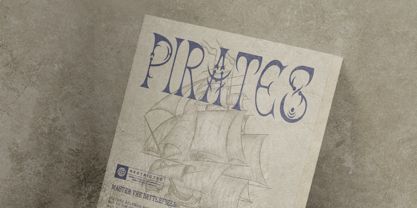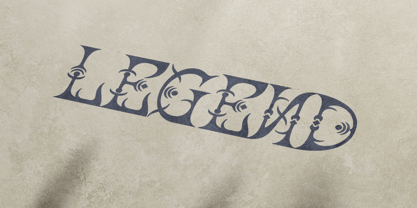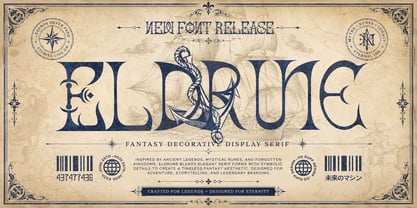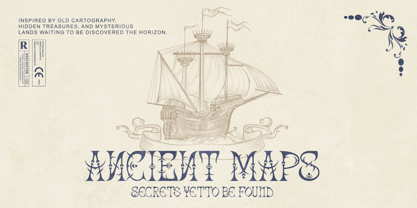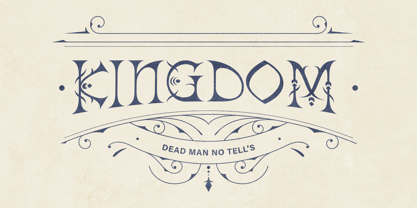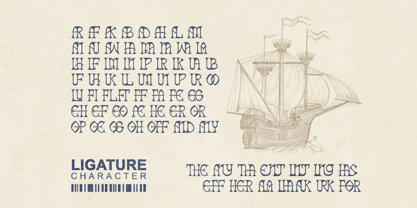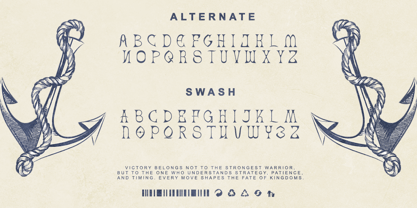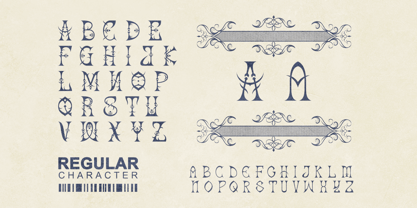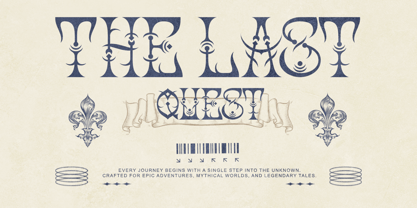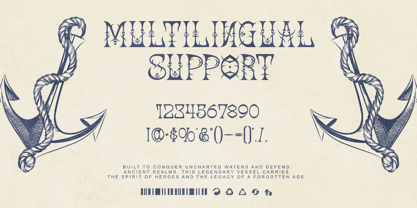
Eldrune
Eldrune is a fantasy decorative serif font inspired by ancient legends, mythical kingdoms, medieval manuscripts, nautical adventures, and forgotten realms. Its elegant serif structure is enriched with symbolic details, ornamental shapes, and distinctive fantasy-inspired letterforms that bring a legendary atmosphere to every design.
Designed for projects that need a strong sense of mystery, history, and adventure, Eldrune is an excellent choice for fantasy logos, book covers, game titles, movie posters, tabletop RPG branding, medieval events, product packaging, heraldic designs, and storytelling projects.
Eldrune combines artistic decoration with a refined display style, making it suitable for both bold headlines and sophisticated visual identities. Its unique characters can help transform an ordinary title into a memorable emblem that feels ancient, magical, and powerful.